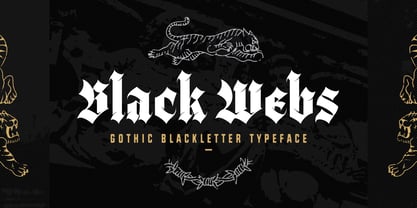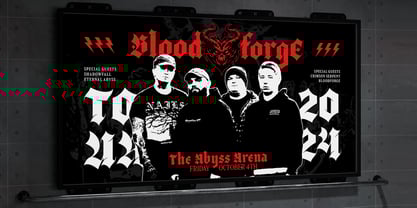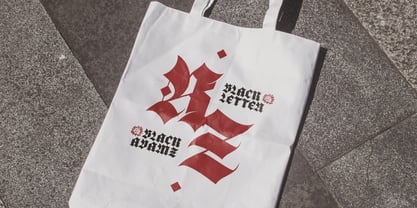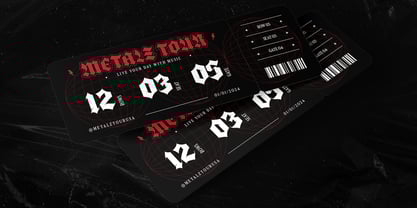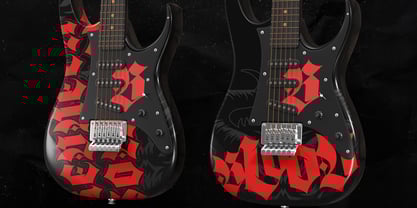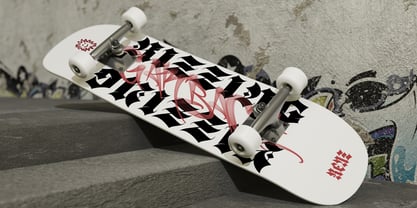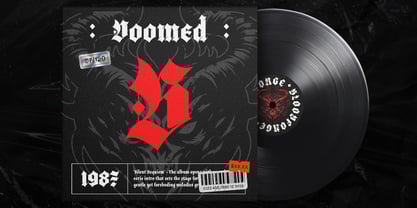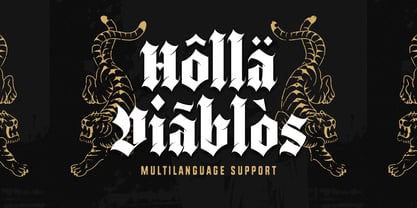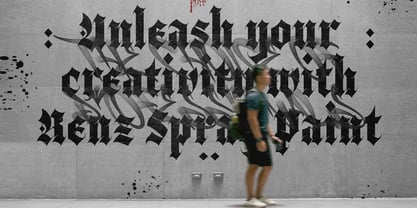
Black Webs
by Typia Nesia
The Black Webs Font Family was designed by Arief Setyo Wahyudi and published by Typia Nesia. Black Webs contains 1 styles. More about this family
Black Webs is a Gothic Blackletter Typeface that embodies the dark, mysterious allure of medieval design with a modern twist. With its bold, intricate strokes and sharp, angular forms, this font is perfect for creating dramatic, eye-catching visuals. It's ideal for branding, album covers, tattoo designs, posters, logos, game design, movie titles, packaging design, apparel branding and any design that require a gothic or medieval aesthetic. Black Webs also shines in editorial designs, book covers, and any project. Designed for those who dare to be bold, Black Webs is ideal for creative professionals who want to incorporate a strong, gothic aesthetic into their work.
Designers: Arief Setyo Wahyudi
Foundry: Typia Nesia